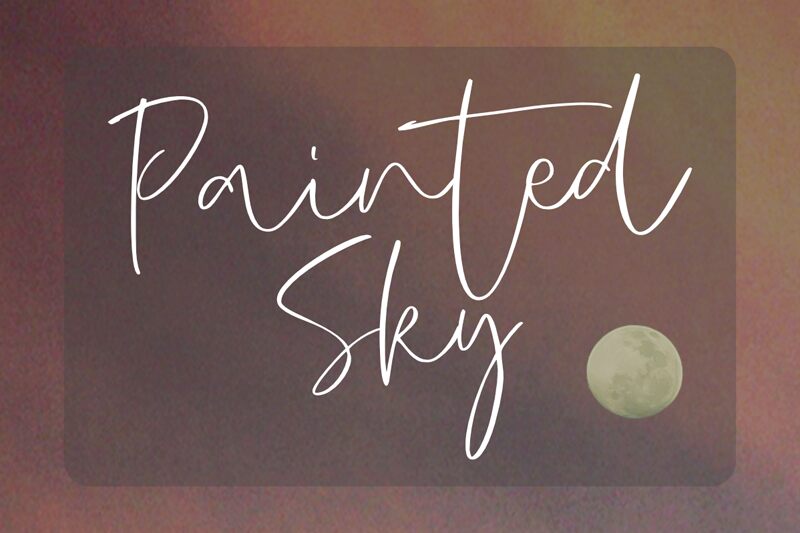
Discover the enchanting world of Painted Sky, a mesmerizing handwritten font designed by olivetype. With its delicate strokes and light weight, this font captures the essence of free-spirited creativity.
Ideal for whimsical designs, children's books, and artistic projects that demand a touch of elegance. Let your imagination run wild as Painted Sky adds a playful yet sophisticated vibe to invitations, quotes, branding materials, and more.
Embrace the ethereal charm of this typeface and watch your designs come alive with its airy grace and timeless appeal.